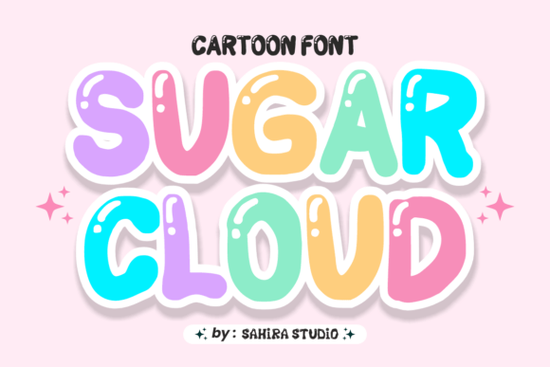
If you're looking for a display font that instantly adds cheerfulness and charm to your designs, Sugar Cloud Font is worth a closer look. With its ultra-chunky, balloon-like letterforms and soft pastel palette, it brings a nostalgic, candy-coated vibe that’s perfect for projects aimed at kids, playful branding, or anything that benefits from a friendly, whimsical touch.
Unlike standard fonts, Sugar Cloud is a color font meaning it includes built-in colors and outlines that render as shown in previews (in compatible software). The thick white stroke around each character gives it dimension and pop, mimicking the look of vinyl stickers or retro bubblegum packaging. This makes it especially useful for designers who want to skip extra steps in editing while still achieving a vibrant, layered appearance.
What kinds of projects work best with Sugar Cloud?
This font shines in contexts where joy and approachability matter most. Think:
- Kids’ clothing or accessories (onesies, backpacks, lunchboxes)
- Social media graphics for parenting blogs, bakeries, or toy brands
- Mobile game UI elements or app icons needing a soft, inviting feel
- Packaging for sweets, ice cream, or party favors
- Digital stickers, greeting cards, or classroom decor
Because of its bold weight and rounded terminals, Sugar Cloud works best at larger sizes it’s a display font, not meant for body text. But that’s exactly what makes it so effective for headlines, logos, or focal-point typography.
How does it compare to other playful display fonts?
If you’ve browsed Creative Fabrica’s collection of fun display fonts, you might also like options like Preppy Sweet, which blends hand-lettered charm with pastel elegance, or the more structured yet cheerful Preppy Chic. For contrast, City Spray offers an urban, graffiti-inspired energy, while the Seafaring Scarring Trio leans into nautical adventure with rugged textures. Sugar Cloud stands apart by leaning fully into softness no sharp edges, no grit, just pure sugary delight.
Do I need special software to use it?
Yes but only if you want to see the full-color version as designed. Sugar Cloud is an OpenType-SVG (color) font, which means apps like Adobe Photoshop (CC 2017+), Illustrator (CC 2018+), Procreate (with glyphs panel support), and Affinity Designer can display its built-in colors. If your software doesn’t support color fonts, you’ll still get a solid black or white version of the outline shape, which you can manually recolor. Always check compatibility before purchasing if color rendering is essential to your project.
Tips for using Sugar Cloud effectively
To keep your design from feeling overwhelming:
- Pair it sparingly. Use Sugar Cloud for headlines or single words, and pair it with a clean, neutral sans-serif for supporting text.
- Mind the spacing. Its chunky nature means letters naturally take up more room avoid cramming too many characters into tight spaces.
- Consider context. While it’s adorable for a birthday invite, it may feel out of place on a corporate report or minimalist product label.
- Test mockups first. Print-on-demand sellers should preview how the font appears on mugs, tees, or tote bags before listing live products.
Remember: the goal isn’t just to use a cute font it’s to match the tone of your message. Sugar Cloud works because it feels genuine, not forced. When your audience expects warmth and playfulness, this font delivers without trying too hard.
Ready to try it?
If your next project calls for something sweet, simple, and full of personality, Sugar Cloud could be the missing ingredient. Just make sure your design tools support color fonts, and always pair it with intention.